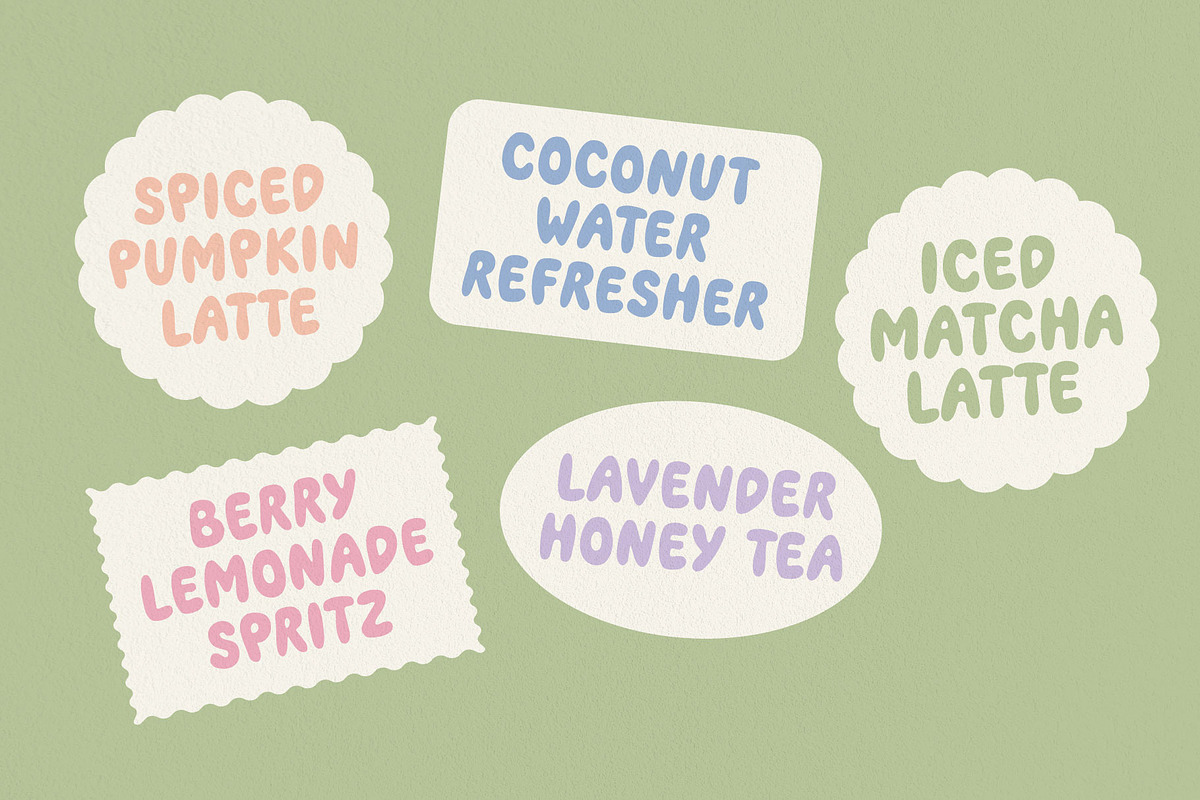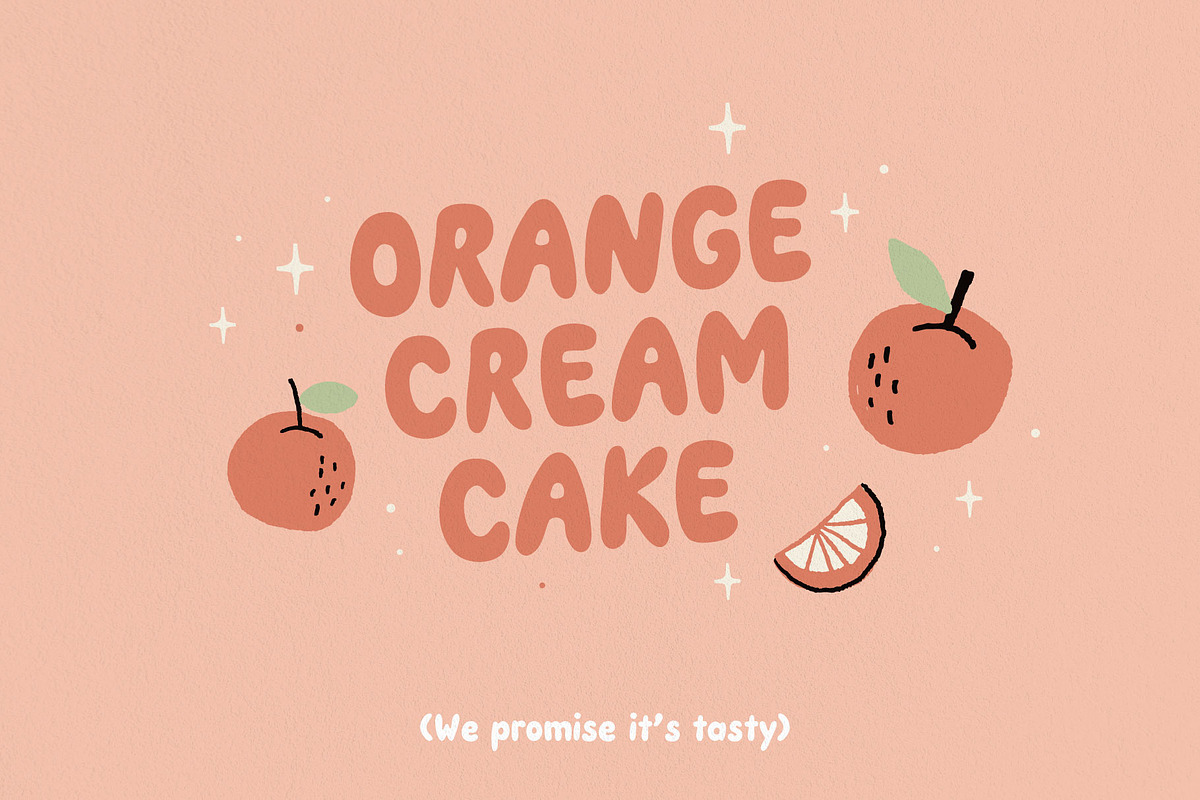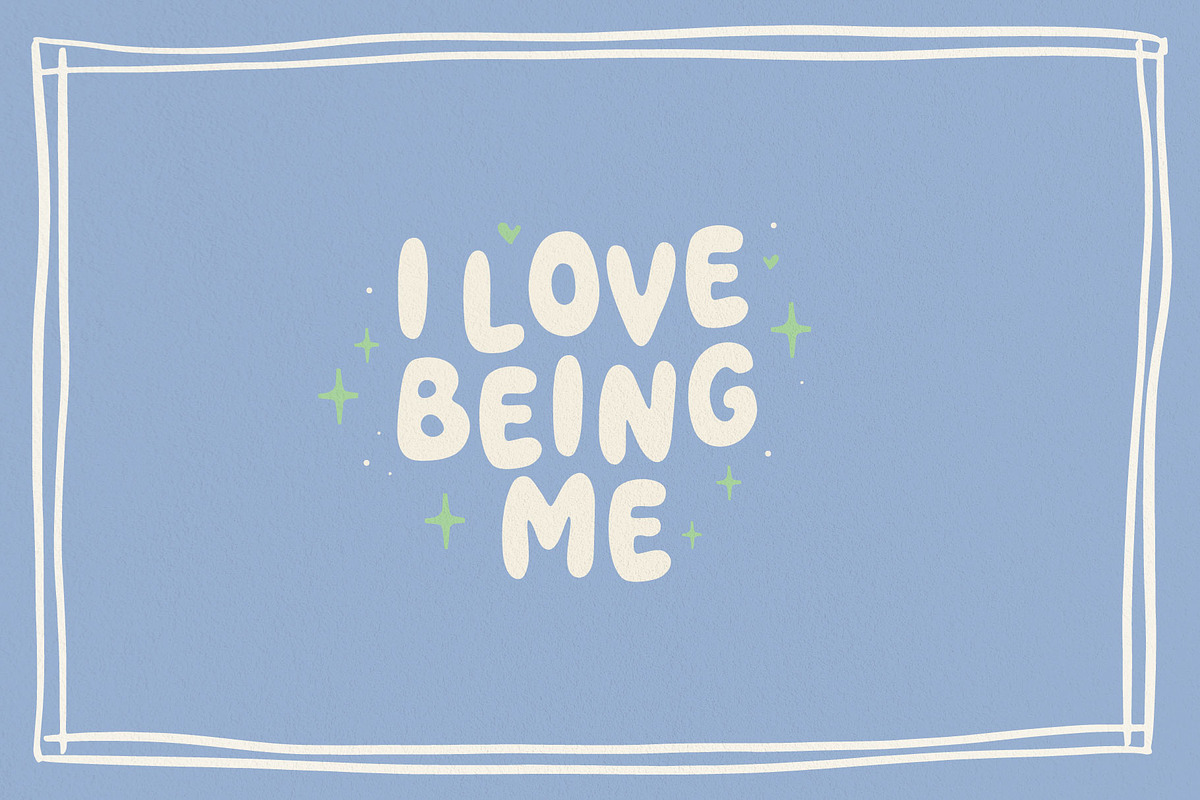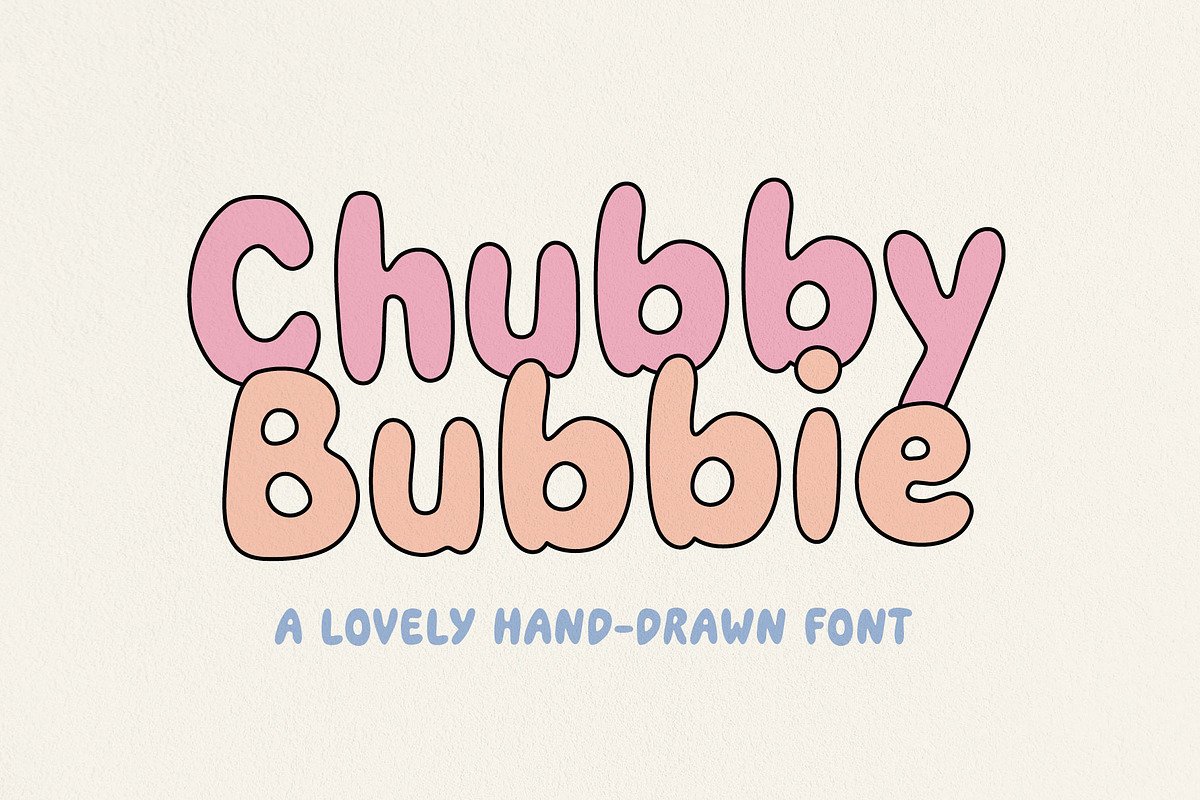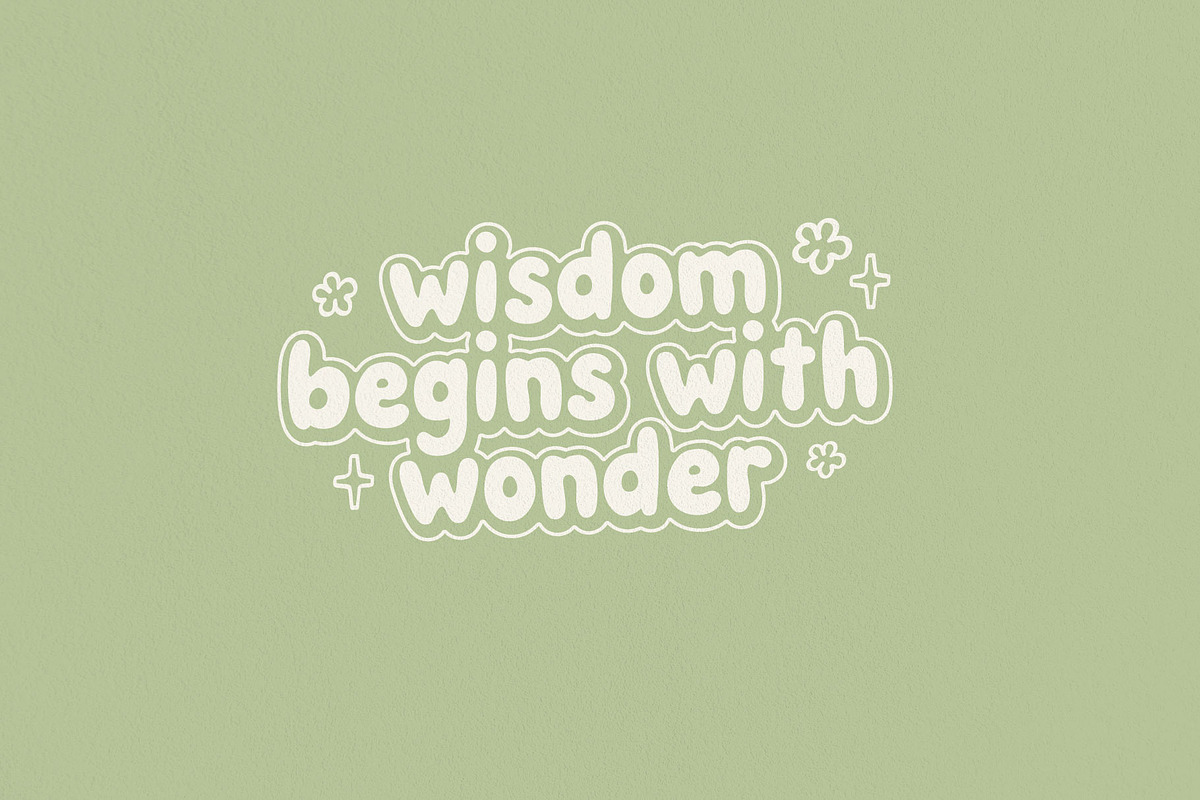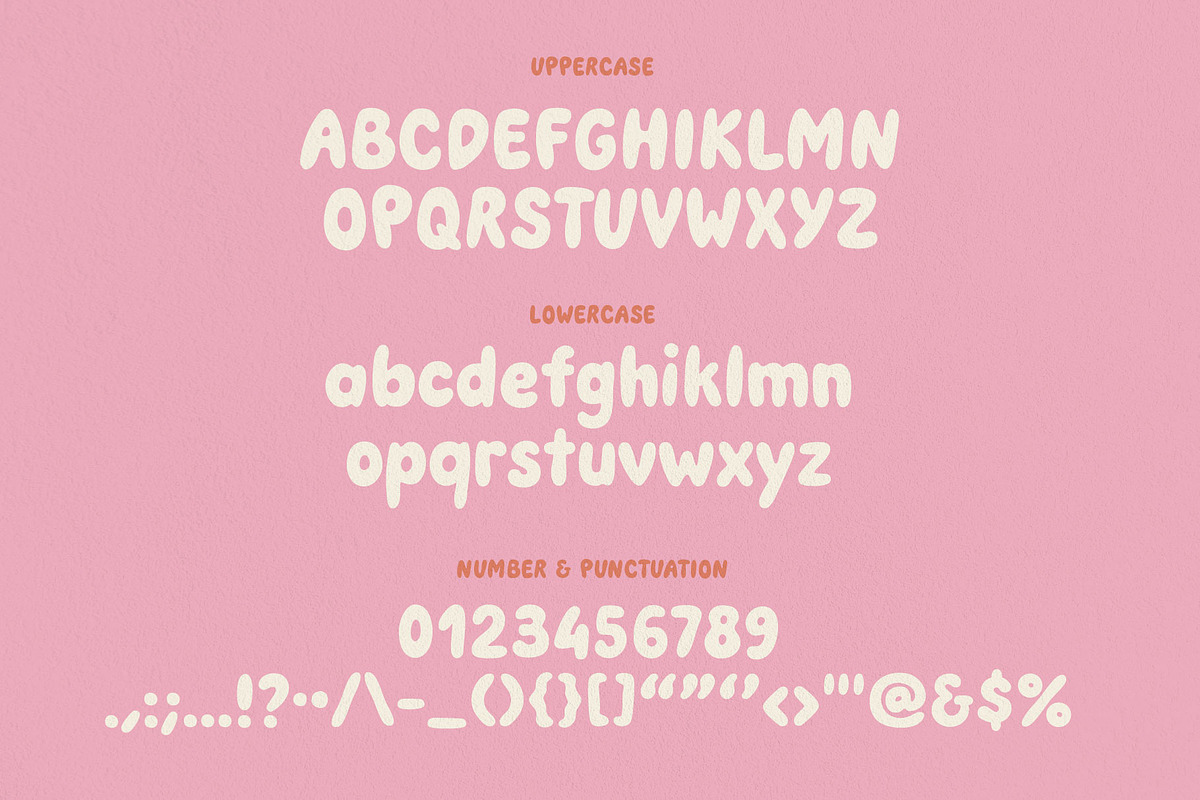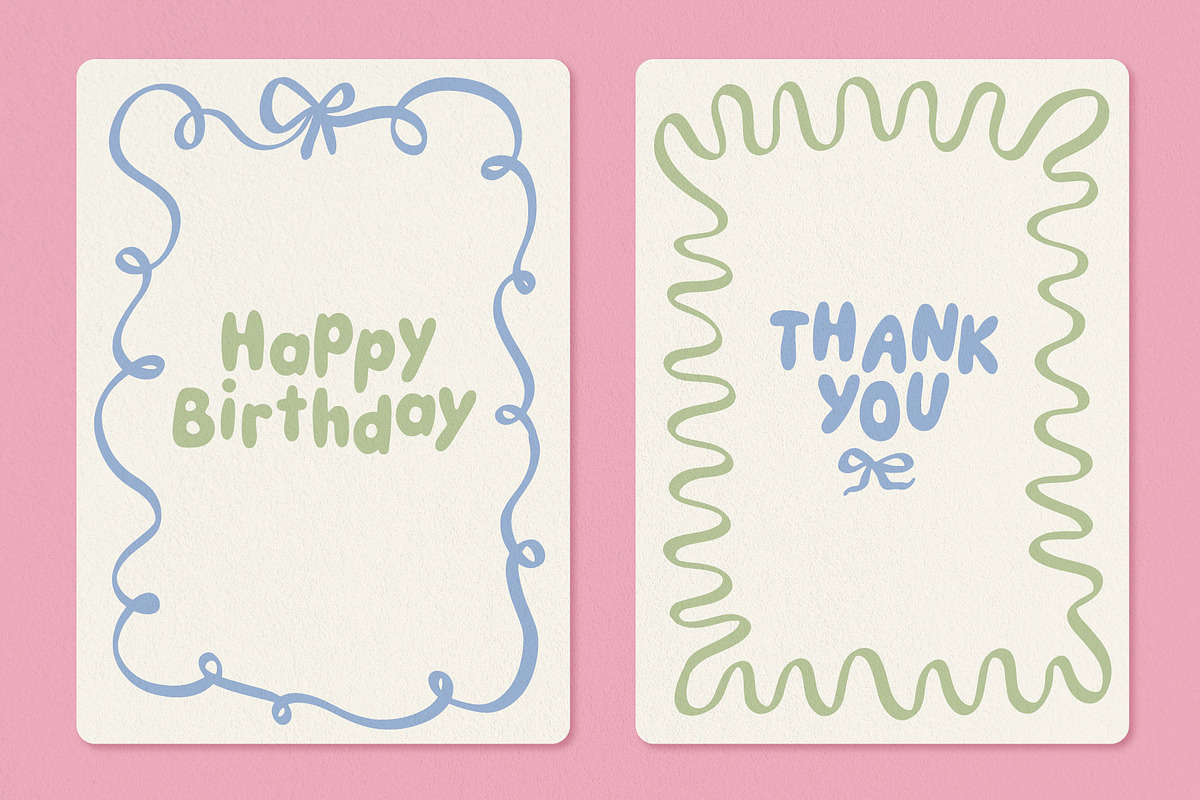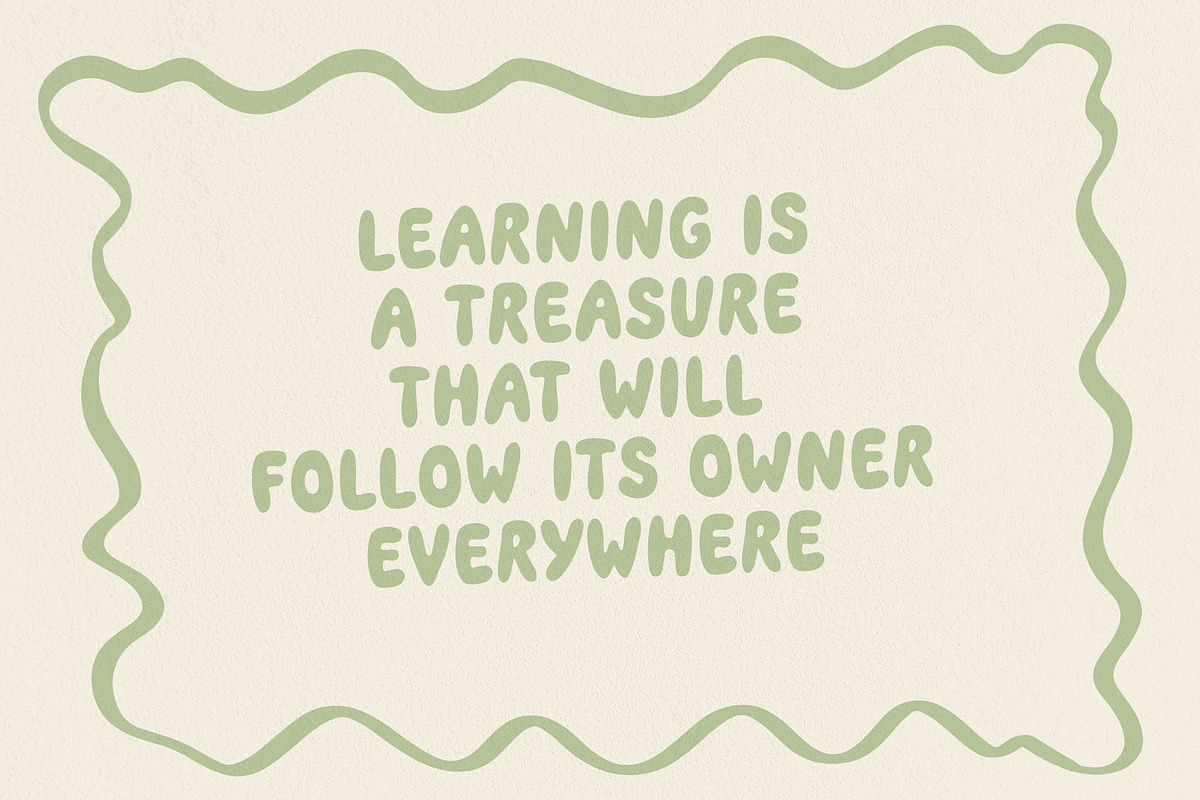
Chubby Bubbie - Bubble Display Font
Chubby Bubbie brings a playful charm to any design project. Its whimsical curves and bubbly letters make it ideal for adding a touch of happiness to postcards, brand identity, apparel designs, and so much more.
Font features:
- Numbers & punctuations
Ways to use Chubby Bubbie
- Set your short-form video headline in Chubby Bubbie
- Craft vibrant and educational materials that captivate young minds
- Create eye-catching merchandise that expresses joy and individuality
- Transform editorial layouts into happy adventures
- Make packaging stand out on shelves
- Turn websites into interactive playgrounds with cute headlines set in Chubby Bubbie